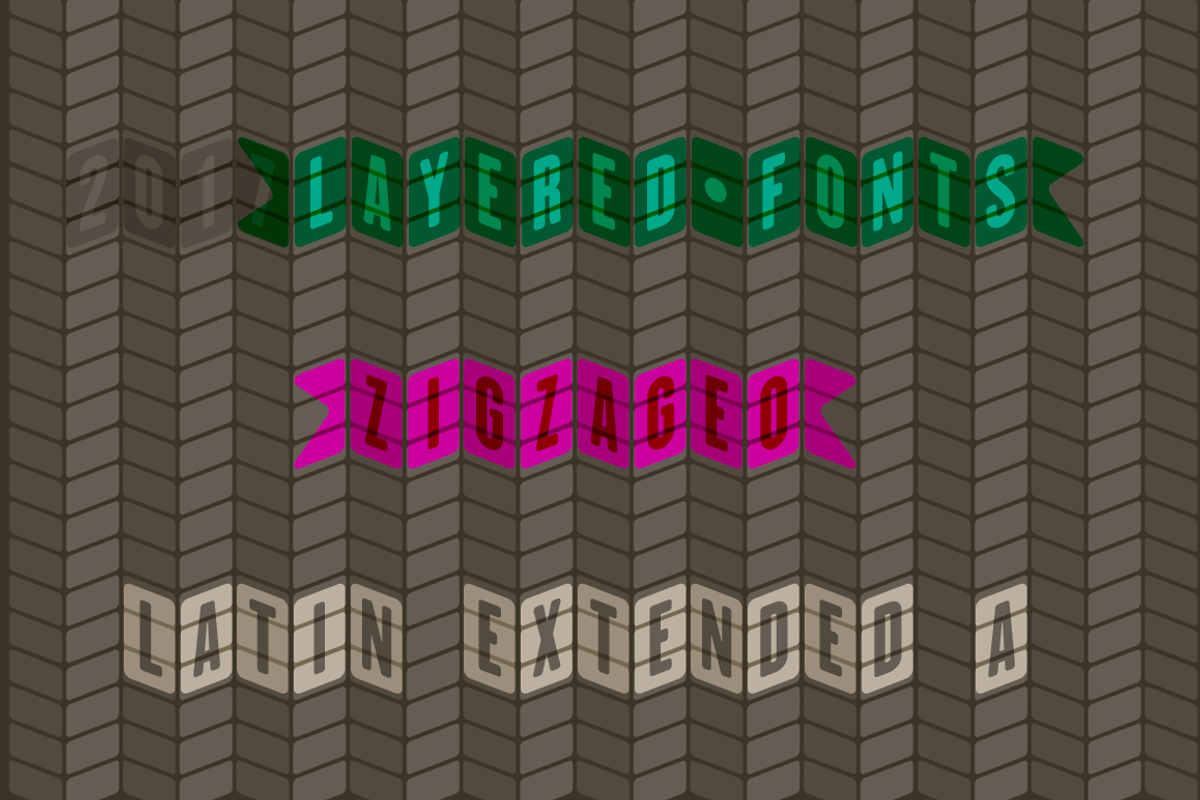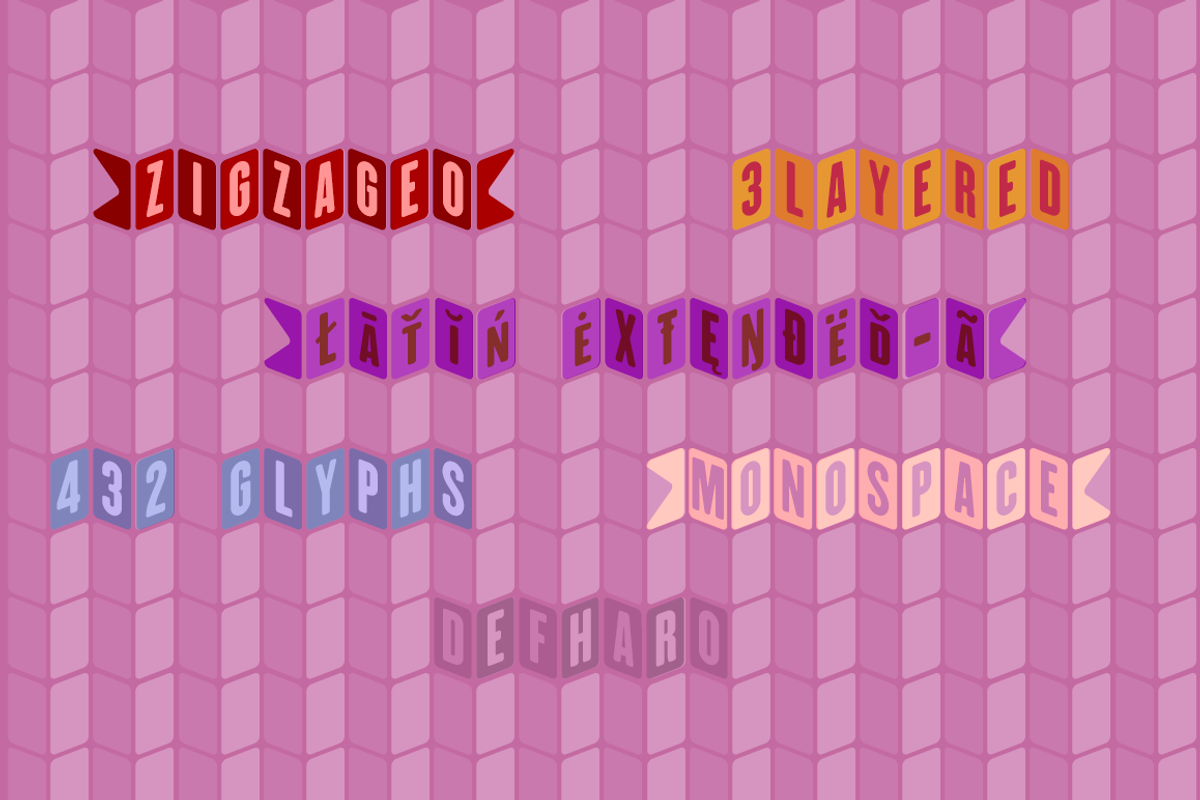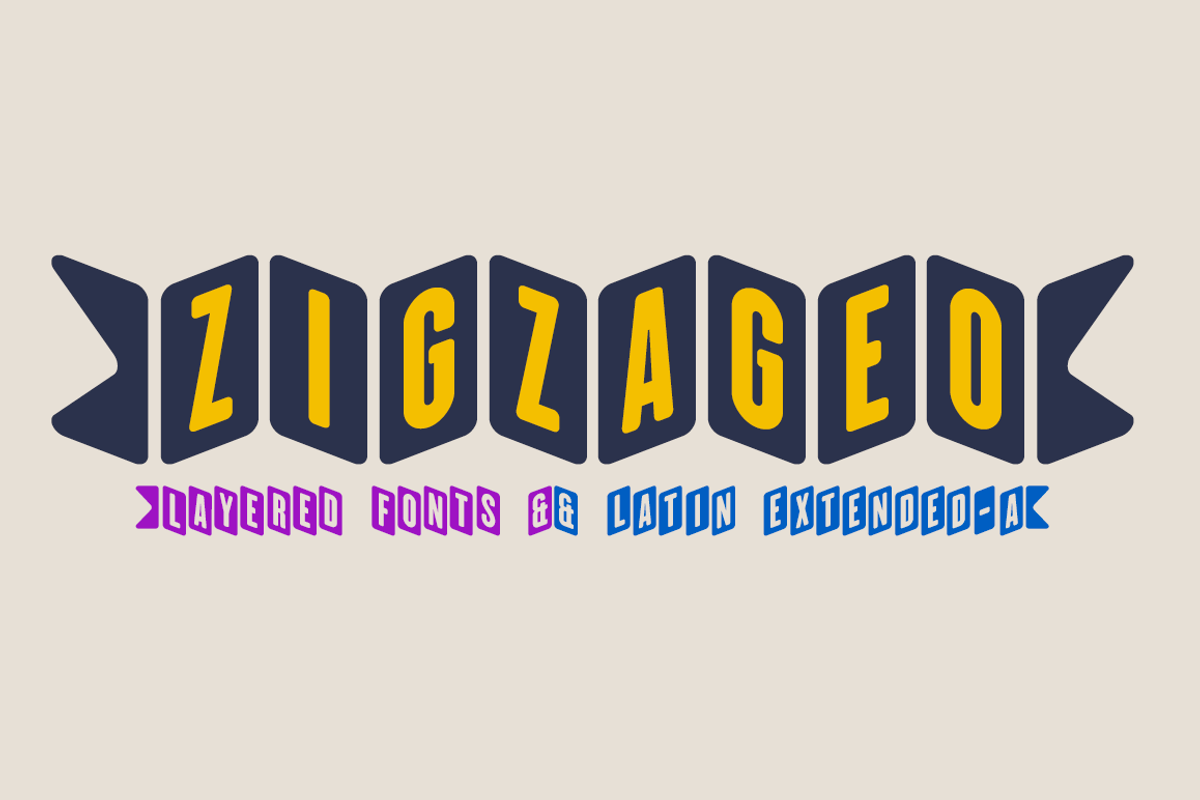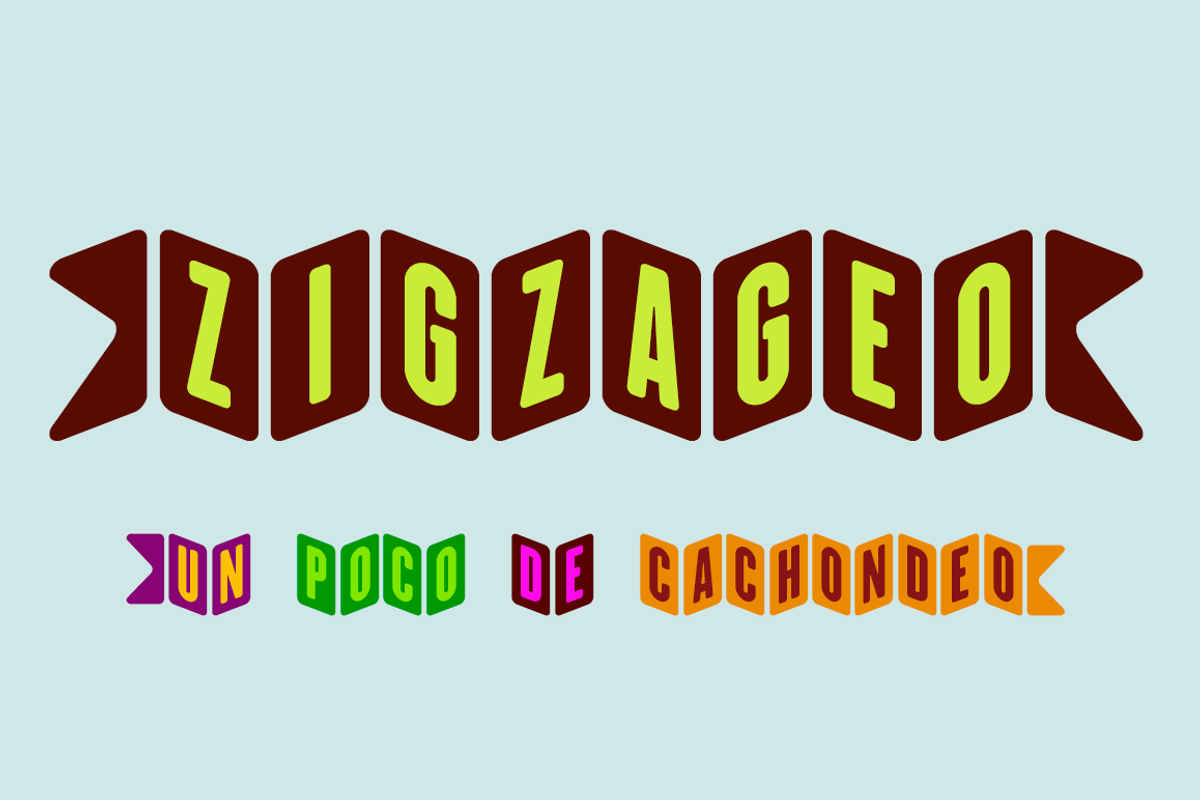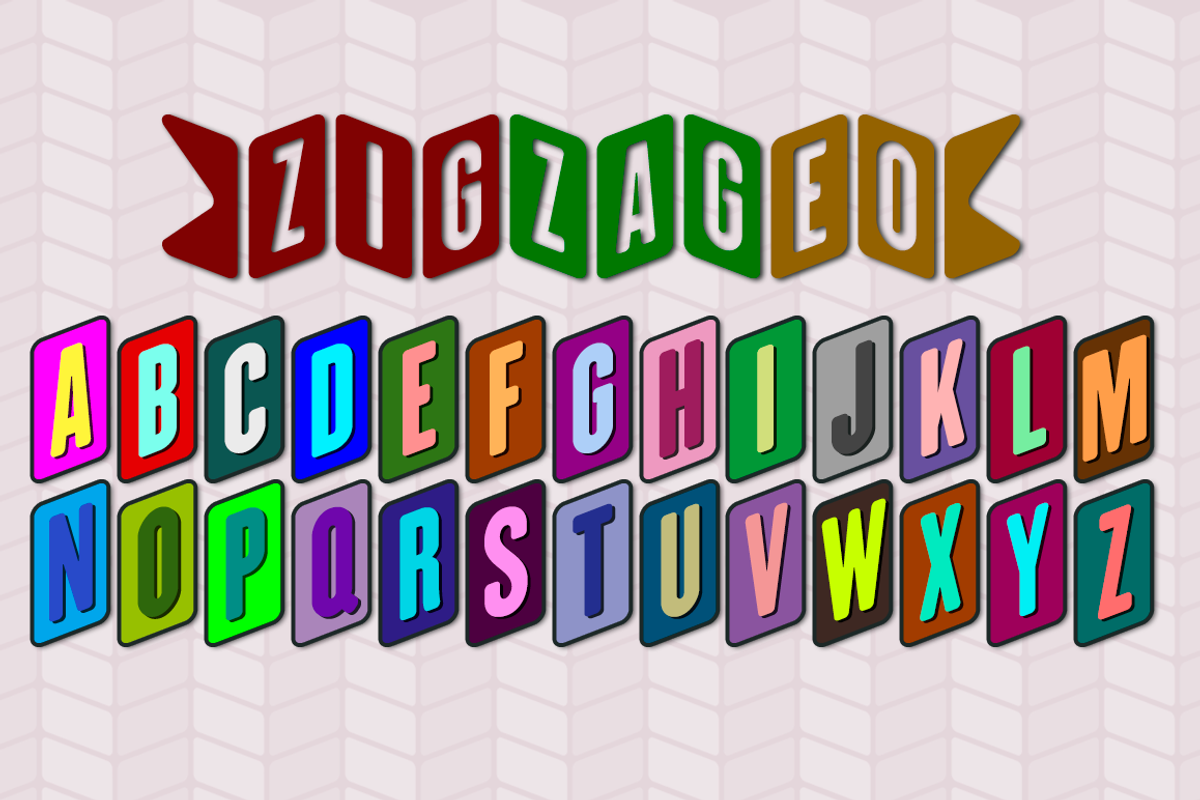
Zigzageo -3 fonts-
Zigzageo is a set of three display fonts type banner, combinable between them using layers, this feature allows you to create purely typographical multicolored titles. Also with the Zigzageo Back version you can create serrated borders and geometric backgrounds to complete your designs.
- Write alternating uppercase and lowercase to get zigzag phrases.
- Use the following keys to use the phrase end and start ornaments: () [] {}
- Example title: [ZiGzAgEo]
- Includes the Bitcoin symbol: b#
- 3 layered fonts: Regular, Back & Front
- *OpenType Functions: Discretionary Ligatures, Standard Ligatures, All Alternates, Slashed Zero, Ornaments, Additional languages.